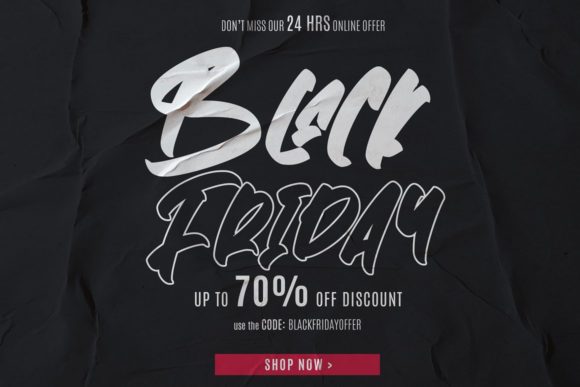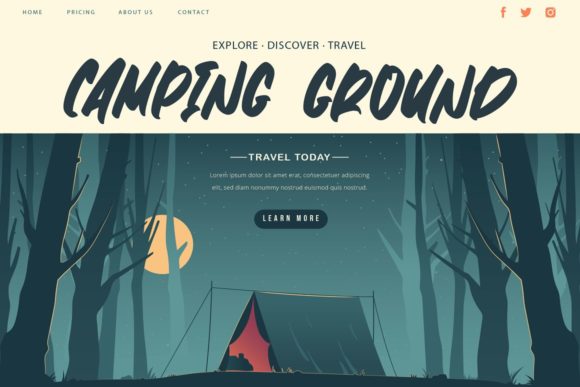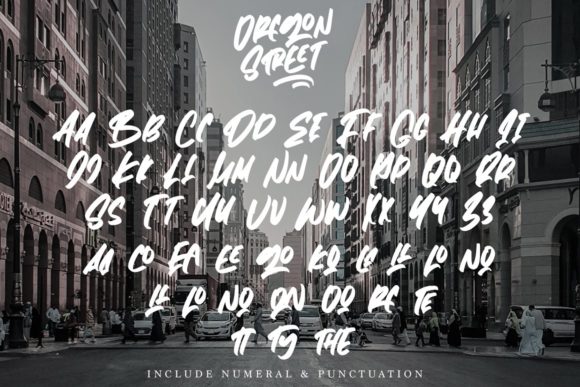
Introduction to Oregon Street Font
Imagine you’re flipping through a high-end fashion magazine, and the bold, handwritten font catches your eye. The smooth curves and thick letters transport you to a world of luxury and sophistication. That’s the magic of the Oregon Street Font, a design resource that can elevate any creative project to the next level.
As a designer, you’re constantly on the lookout for high-quality fonts that can add a touch of personality to your work. And that’s exactly what the Oregon Street Font offers – a free download that’s perfect for editorial designs, fashion branding, or any other project where you want to make a statement.
With its transparent background and versatile design, the Oregon Street Font is a valuable addition to any designer’s toolkit. Whether you’re working on a small creative project or a large-scale design initiative, this font is sure to impress. So why not add it to your design resource library today and discover the impact it can have on your work?
Key Features of Oregon Street Font
- Unique blend of modern and vintage elements, perfect for creative projects and design resources.
- High-quality font with a transparent background, ideal for use on images or videos.
- Designed to be highly legible, even at small font sizes, making it perfect for use in a variety of creative projects.
- Perfect for use in branding, logos, and other design elements where a unique and eye-catching font is required.
Honest Review: Oregon Street Font
I recently stumbled upon the Oregon Street Font, and I must say it’s been a great addition to my design arsenal. This free download is a high-quality resource that’s perfect for creative projects.
- ✨ Unique and stylish design aesthetic that sets it apart from other fonts
- ✨ Highly legible and clear, making it perfect for body text and headings
- ✨ Supports transparent background, which is a huge plus for designers who need to work with complex backgrounds
However, I did encounter a few limitations with this font. While it’s a great resource, it’s not suitable for all types of projects.
- ⚠️ May not be the best choice for formal or professional projects due to its playful design aesthetic
- ⚠️ Some users may find the font too bold or overpowering for certain applications
Overall, I’m impressed with the Oregon Street Font. It’s a fantastic design resource that’s perfect for creative projects and designers who want a unique and stylish font. While it may have some limitations, I believe it’s a great addition to any designer’s toolkit.
Tips for Getting the Most Out of Oregon Street Font
Experiment with different font sizes and colors to create visually appealing designs. Use the font’s transparent background to create graphics with a seamless look. Combine the Oregon Street Font with other design elements to create unique and eye-catching designs.
The Oregon Street Font is a versatile design resource that can be used in a variety of creative projects, including graphic design, digital art, and web design. Its high-quality features and transparent background make it perfect for creating professional-looking designs.